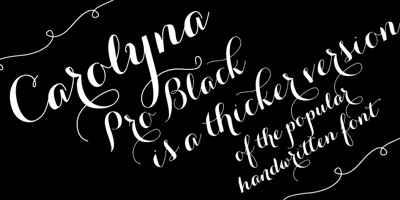
Carolyna Pro Black Font
Carolyna Pro Black Font is ideal for bold fashion branding, dramatic poster designs, powerful magazine headlines, striking logo creations, high-impact advertising campaigns, contemporary art exhibitions, and commanding digital interfaces.
What makes Carolyna Pro Black Font exciting is its commanding presence and dramatic intensity, featuring powerful letterforms that capture maximum visual impact while delivering exceptional boldness and contemporary sophistication.
The Carolyna Pro Black Font family includes Ultra Light, Light, Regular, Medium, Bold, and Black weights, plus condensed variants and impact alternates that enhance the font's dramatic character and versatile appeal.
Carolyna Pro Black Font delivers unparalleled typographic power and dramatic visual impact for contemporary design projects. This commanding typeface represents the bold evolution of modern typography, creating a strong visual language that speaks to audiences who demand attention-grabbing design, powerful communication, and uncompromising visual strength. The font's dramatic character and bold appearance make it perfect for brands, publications, and creative projects that want to communicate confidence, power, and the commanding presence of bold design thinking.
Creative agencies and bold brands consistently choose Carolyna Pro Black Font for projects that require maximum visual impact and dramatic credibility. The typeface's powerful construction and commanding personality make it exceptionally effective for fashion brands, entertainment companies, and creative organizations where bold statement-making and visual dominance are paramount. Each character has been crafted with dramatic precision to ensure maximum impact across all bold applications and high-energy environments.
The design advantages of Carolyna Pro Black Font extend beyond its bold appeal to include practical functionality for diverse high-impact applications. The font maintains excellent readability even at dramatic sizes while delivering the distinctive character that creates memorable brand experiences and connects with audiences seeking powerful visual communication. Its comprehensive character set includes bold symbols and dramatic elements that make it particularly suitable for impact documentation and powerful communication.
Fashion brands, entertainment companies, and bold creative organizations frequently incorporate Carolyna Pro Black Font into their brand identity systems because of its ability to instantly convey power and dramatic sophistication. The typeface's commanding aesthetic helps establish strong brand recognition while appealing to audiences who value bold design, visual impact, and the confidence that comes from powerful, uncompromising visual communication and dramatic design excellence.